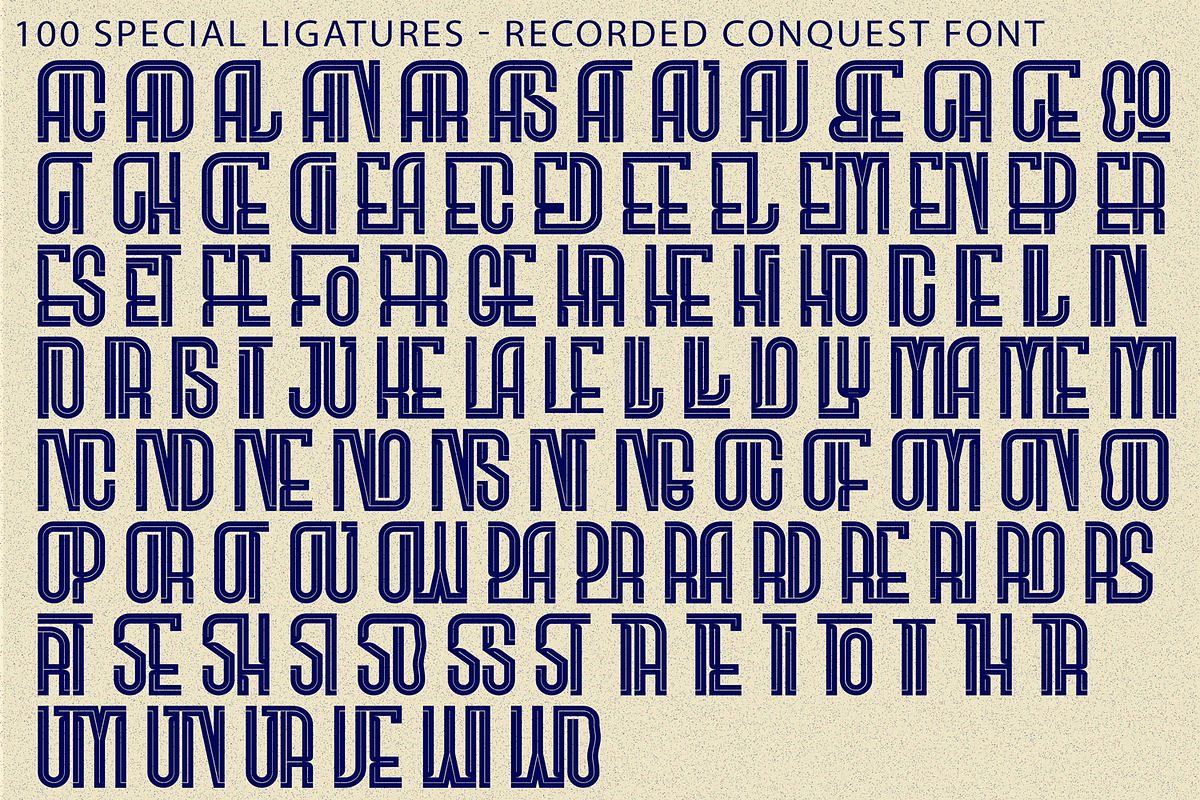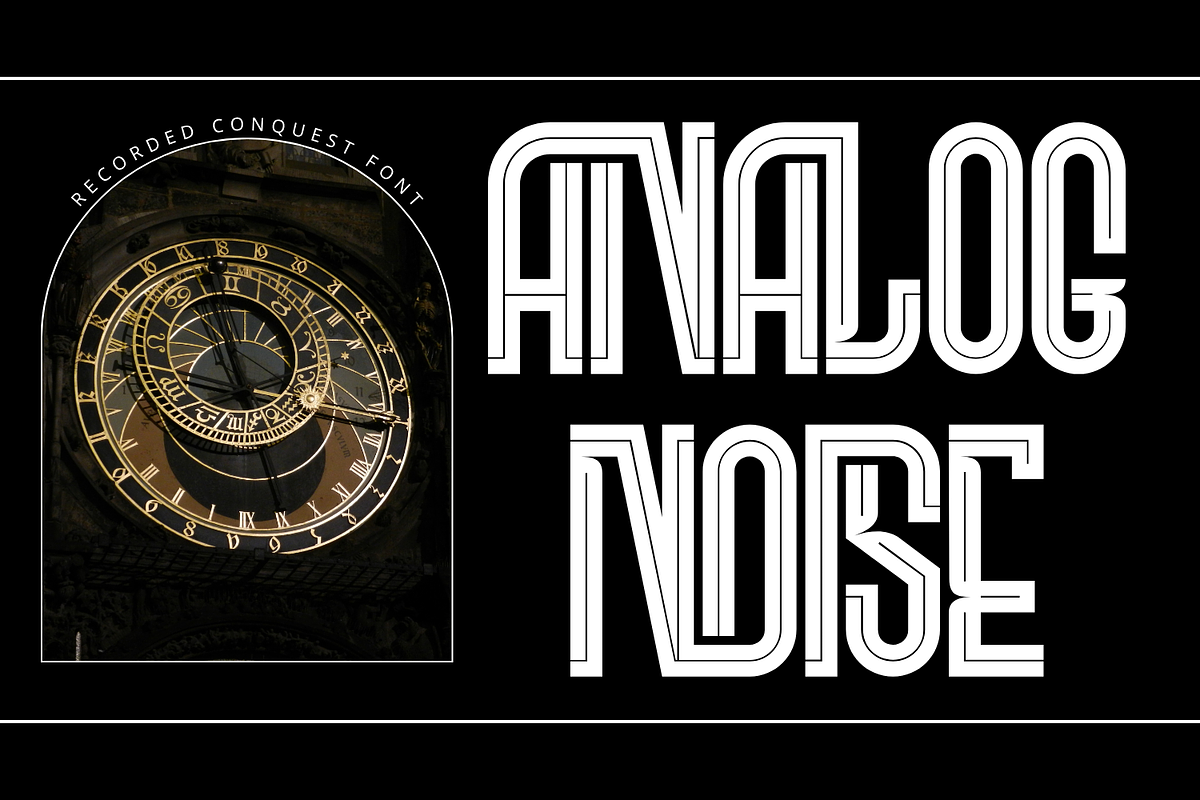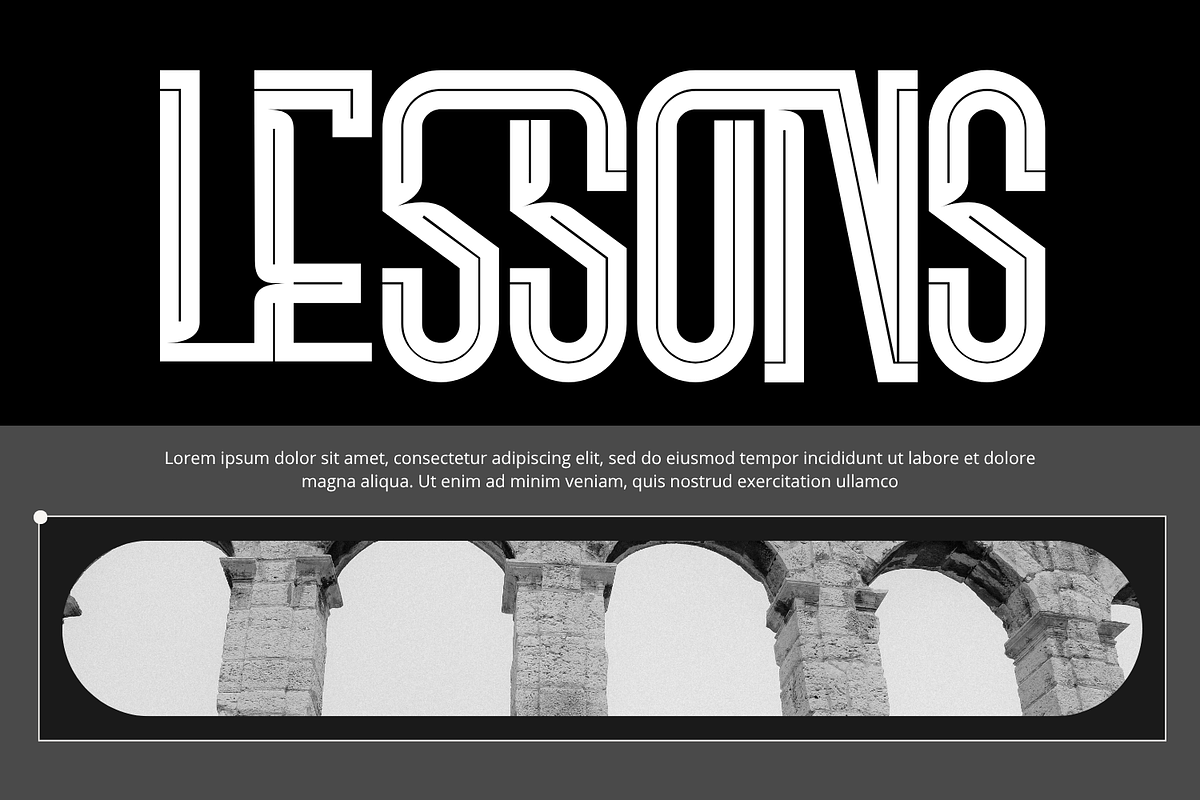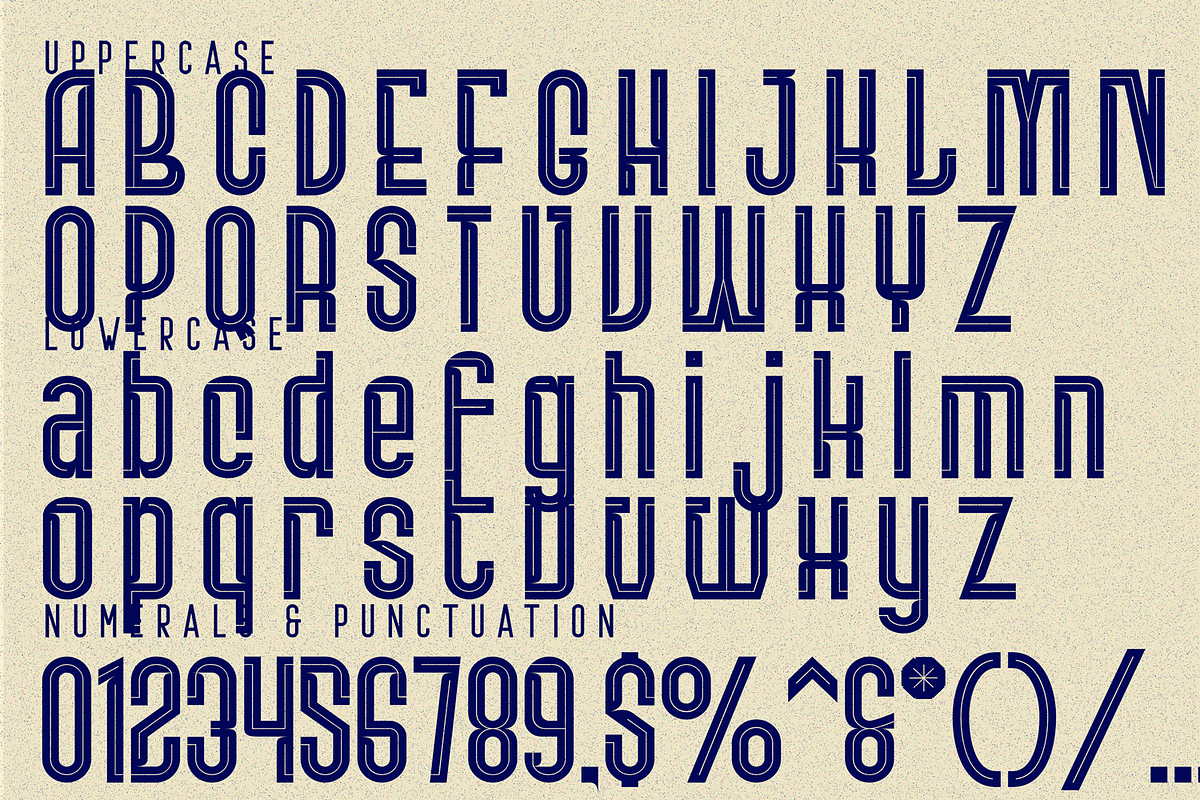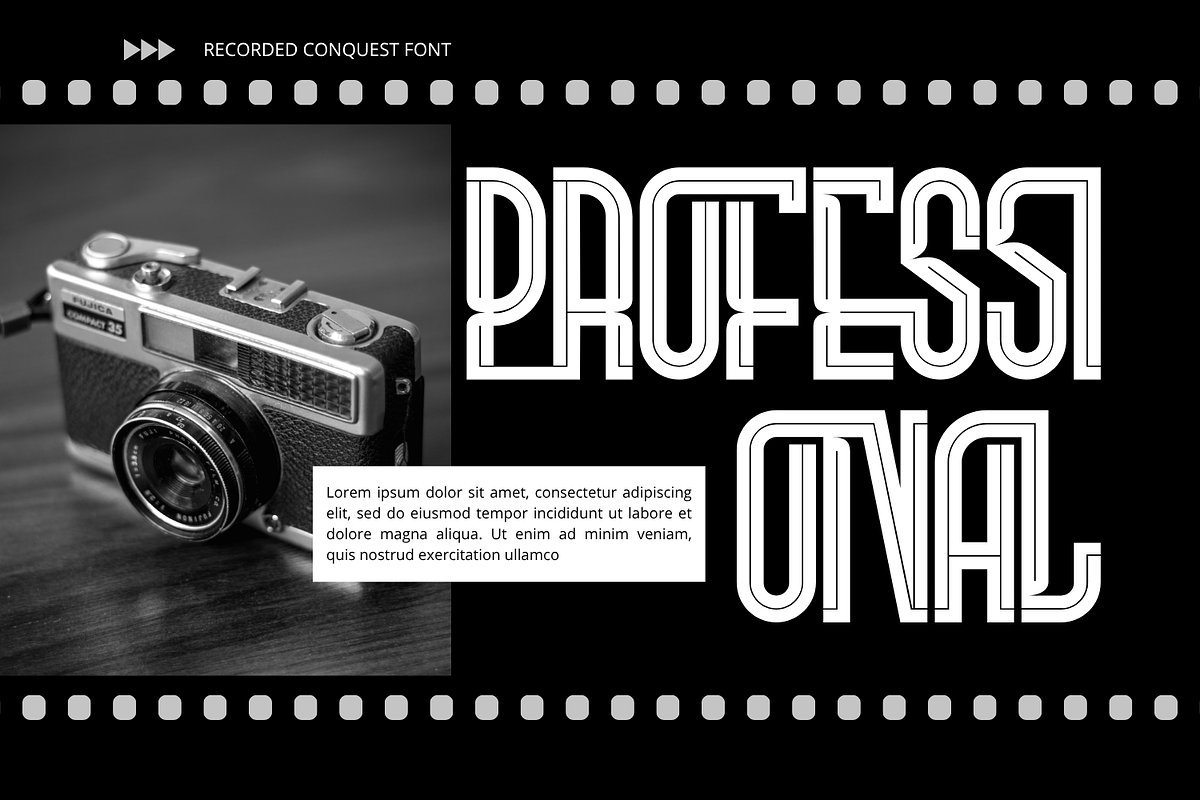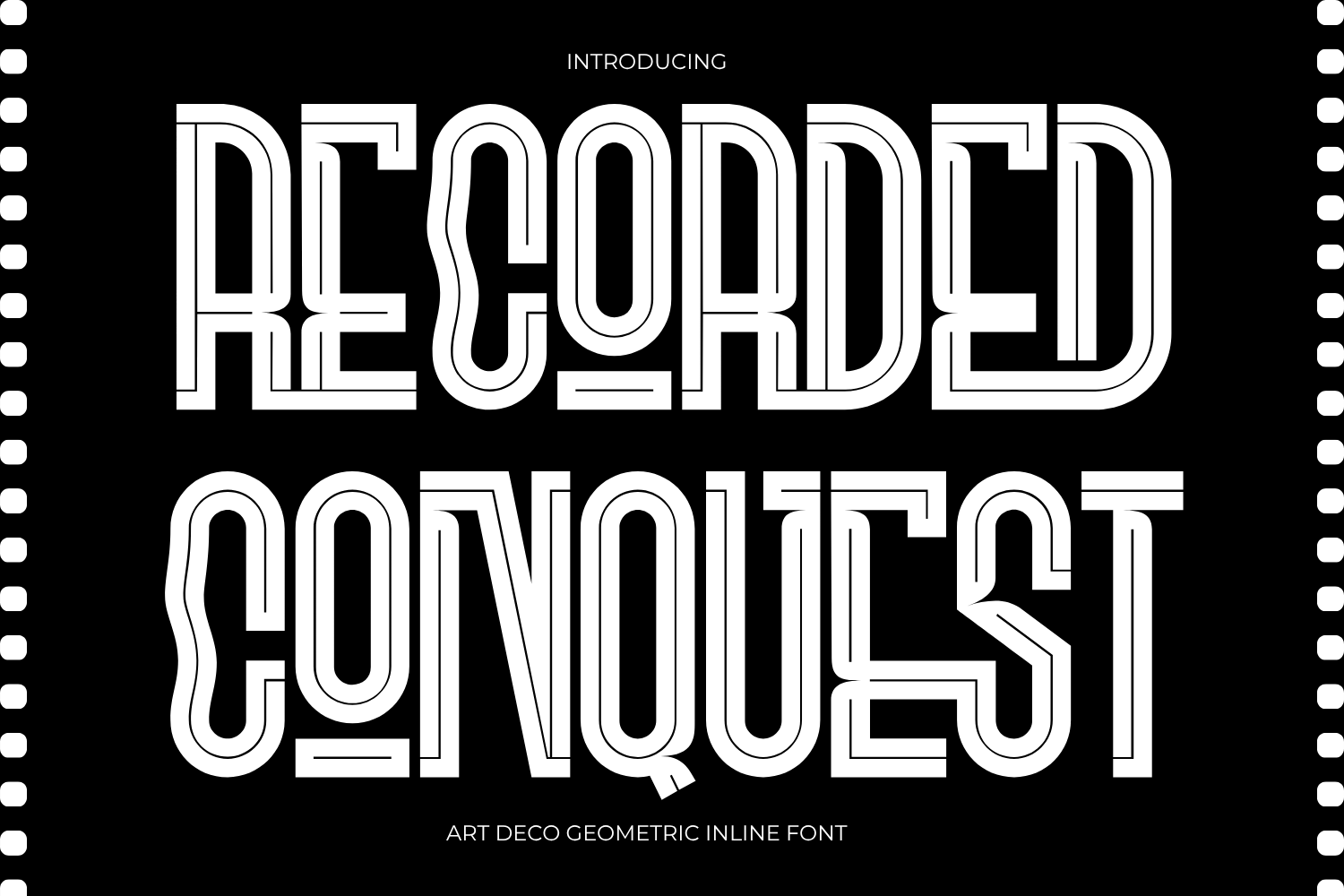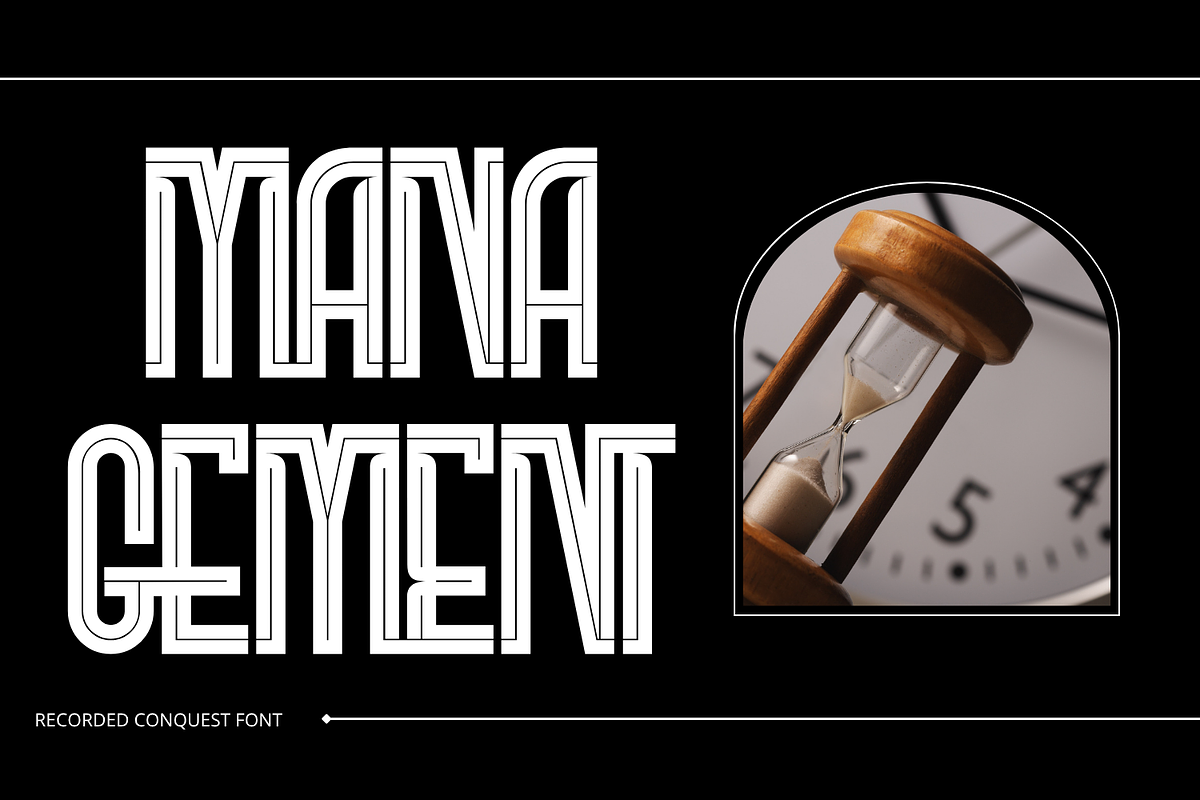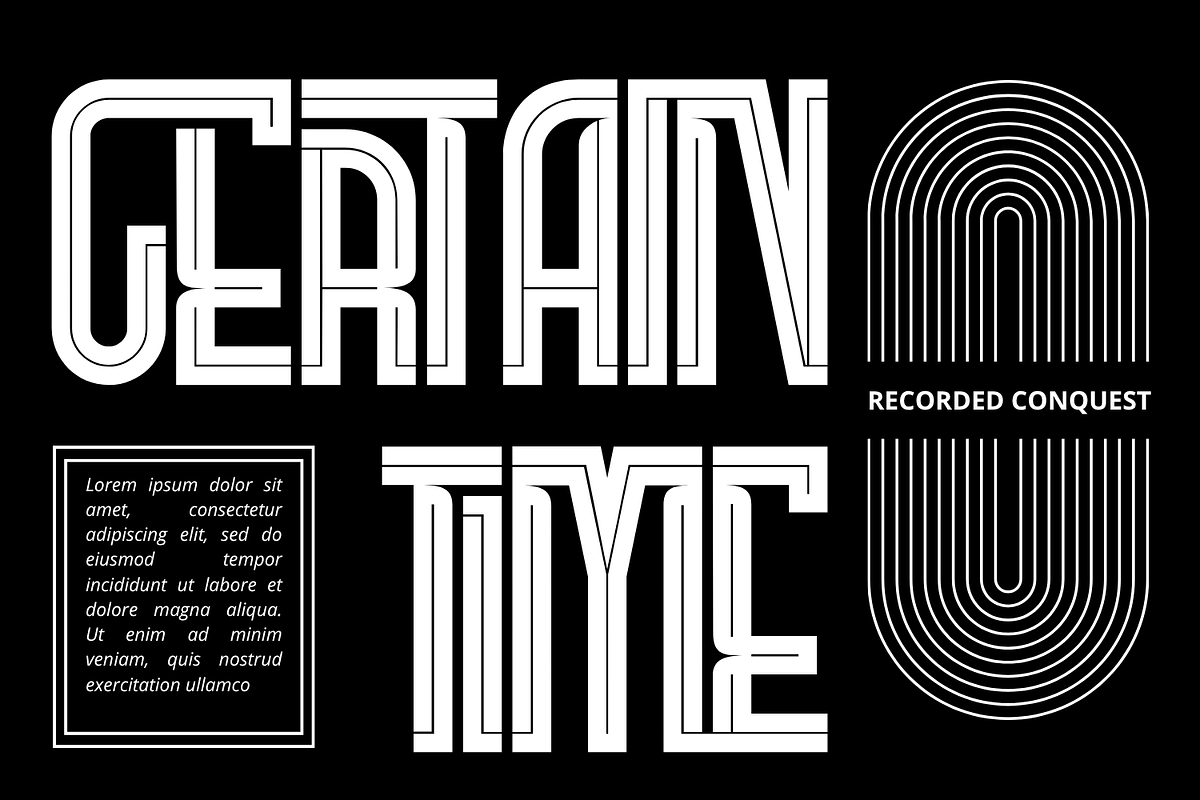
RECORDED CONQUEST - CONDENSED FONT
RECORDED CONQUEST - CONDENSED FONT is a distinctive condensed display typeface that combines elegant Art Deco influences with geometric precision and a contemporary experimental spirit. Characterized by tall, narrow proportions, strong vertical strokes, rounded architectural curves, and decorative inline details, the typeface creates a sophisticated visual rhythm that immediately stands out in large-scale typography. Its layered construction gives the letters a dimensional, almost engraved appearance while preserving a clean and highly graphic silhouette.
The personality of RECORDED CONQUEST comes from the contrast between rigid geometric structure and carefully shaped curves. Parallel interior lines follow the contours of many characters, adding depth and decorative complexity, while elongated forms and unconventional terminals introduce a subtle retro-futuristic quality. Distinctive characters feature unexpected connections, extended strokes, and stylized curves that give words the appearance of custom-designed lettering rather than conventional typesetting.
🔤Features:
Uppercase & Lowercase Letters
Around 100 Special Ligatures & Alternates
Accented Characters for multilingual support
🔤About 100 ligatures combined with Stylistic Alternates Font:
AC AD AL AN AR AS AT AU AV BE CA CE CH CO CT DE DI EA EC ED EE EL EM EN EP ER ES ET FE FO FR GE HA HE HI HO IE IC IL IN IO IR IS IT JU KE LA LE LI LL LO LY MA ME MI NC ND NE NG NO NT NS OC OF OM ON OO OP OR OT OU OW PA PR RA RD RE RI RO RS RT SE SH SI SO SS ST TA TE TH TI TO TR TT UM UN UR VE WI WO